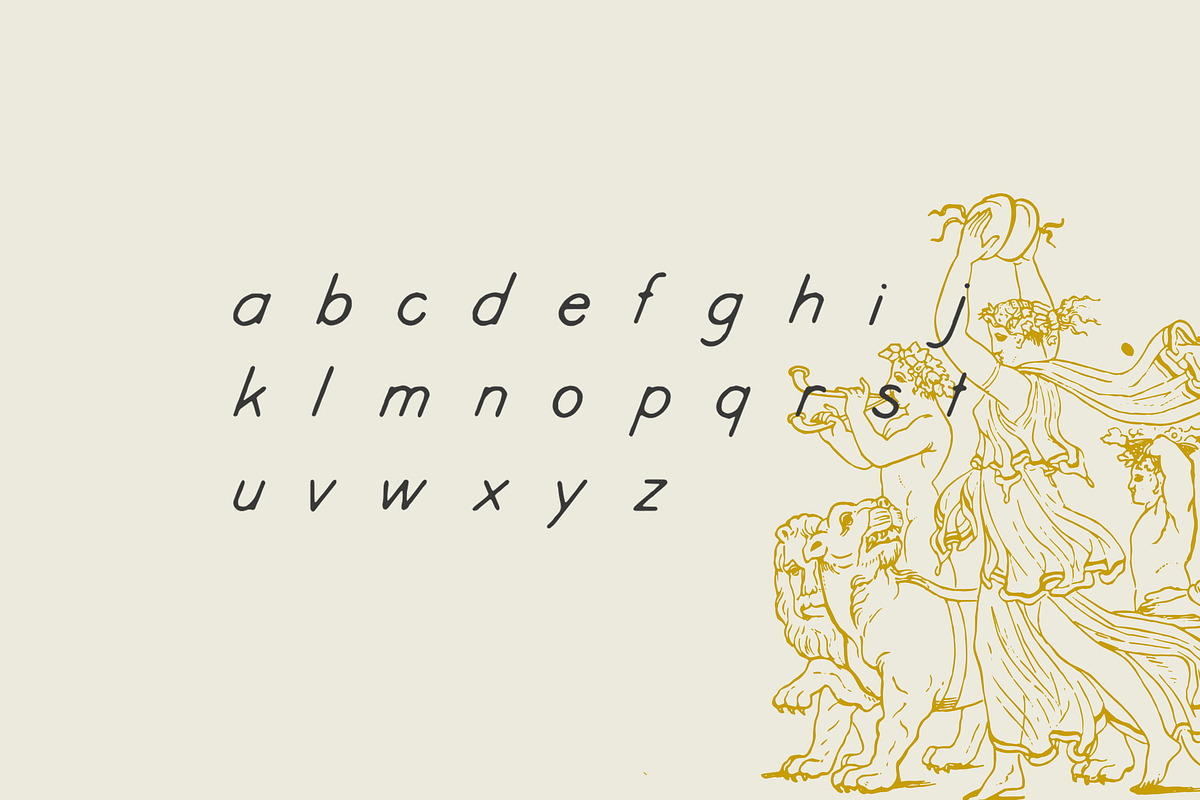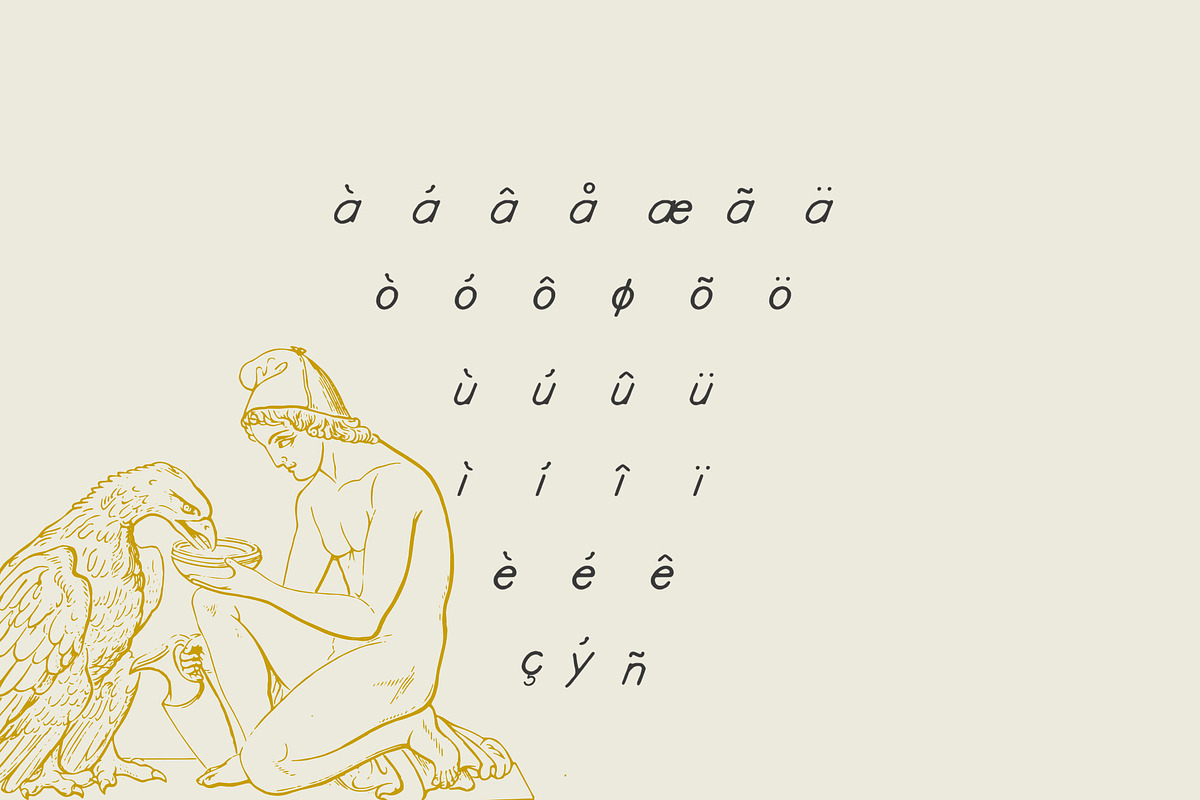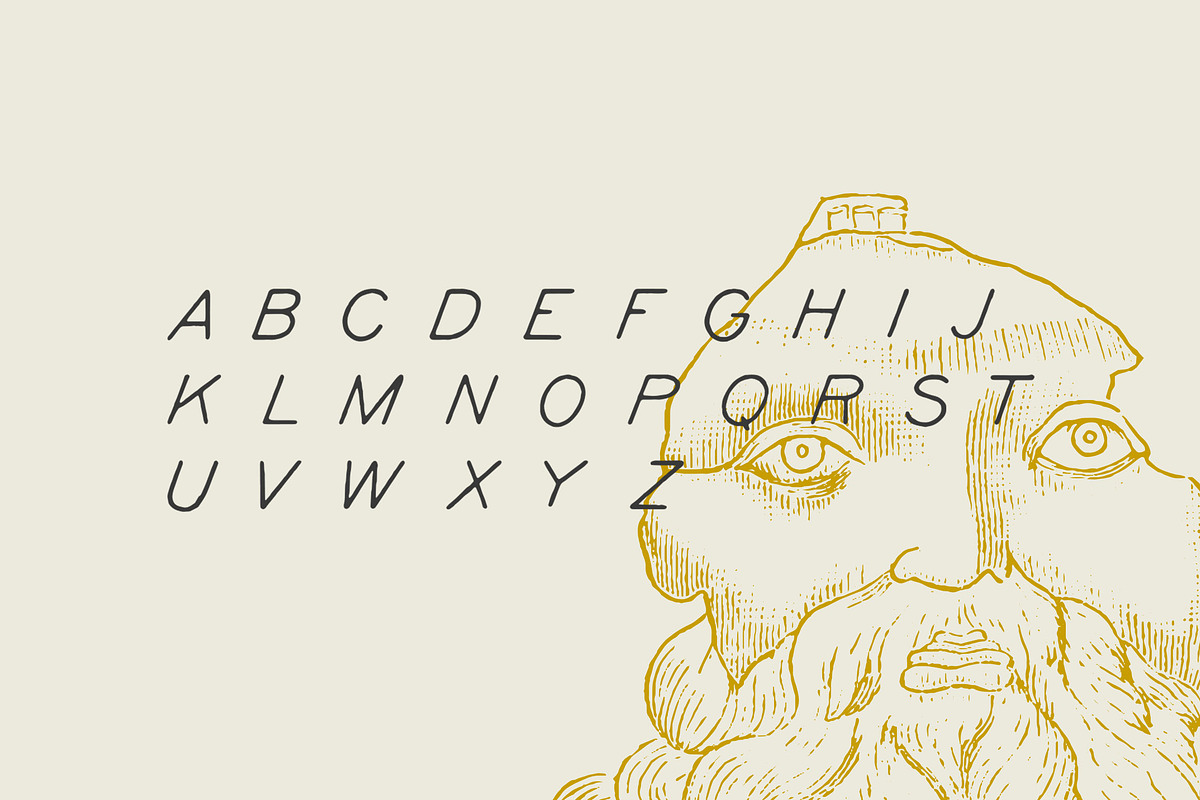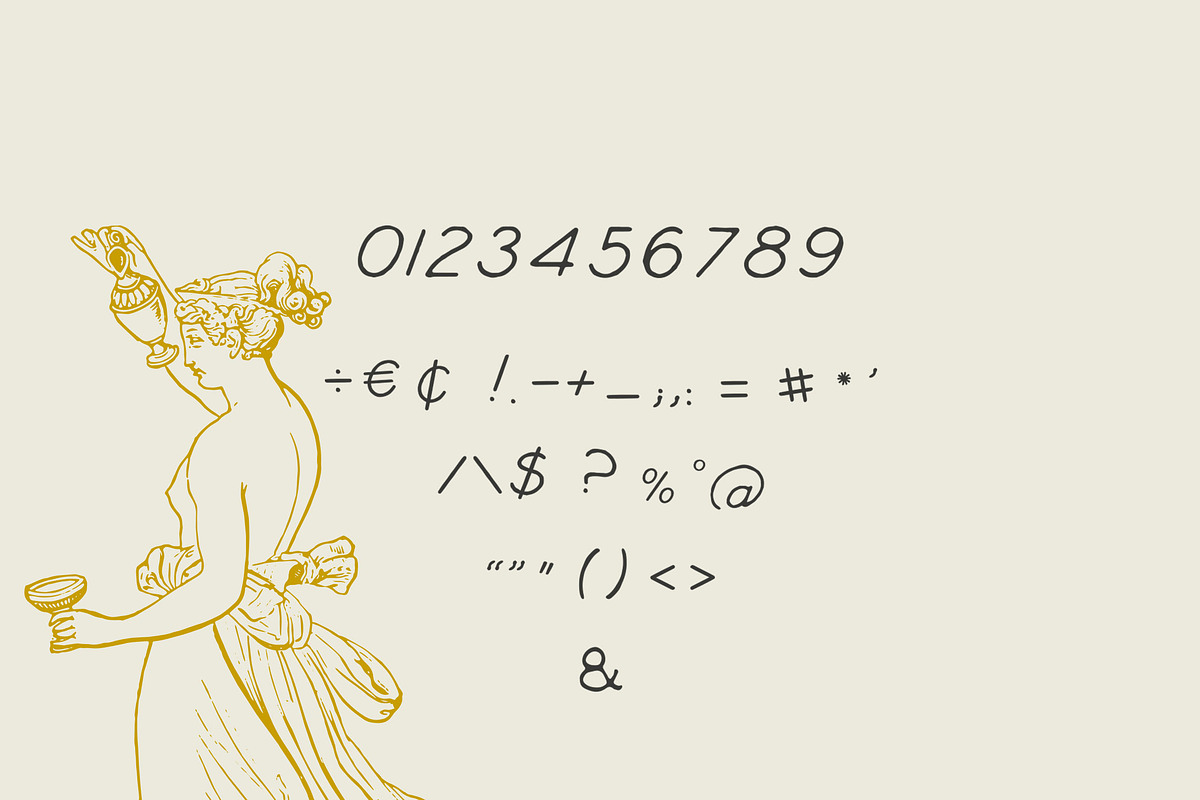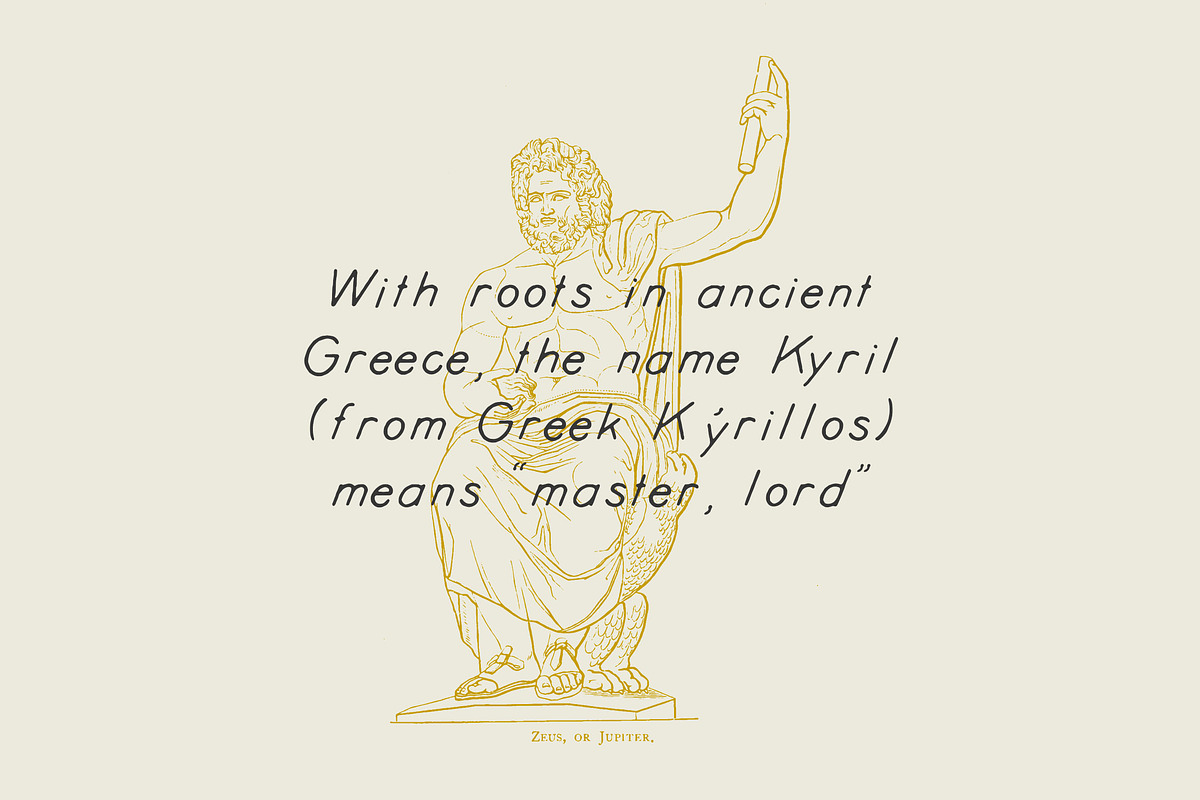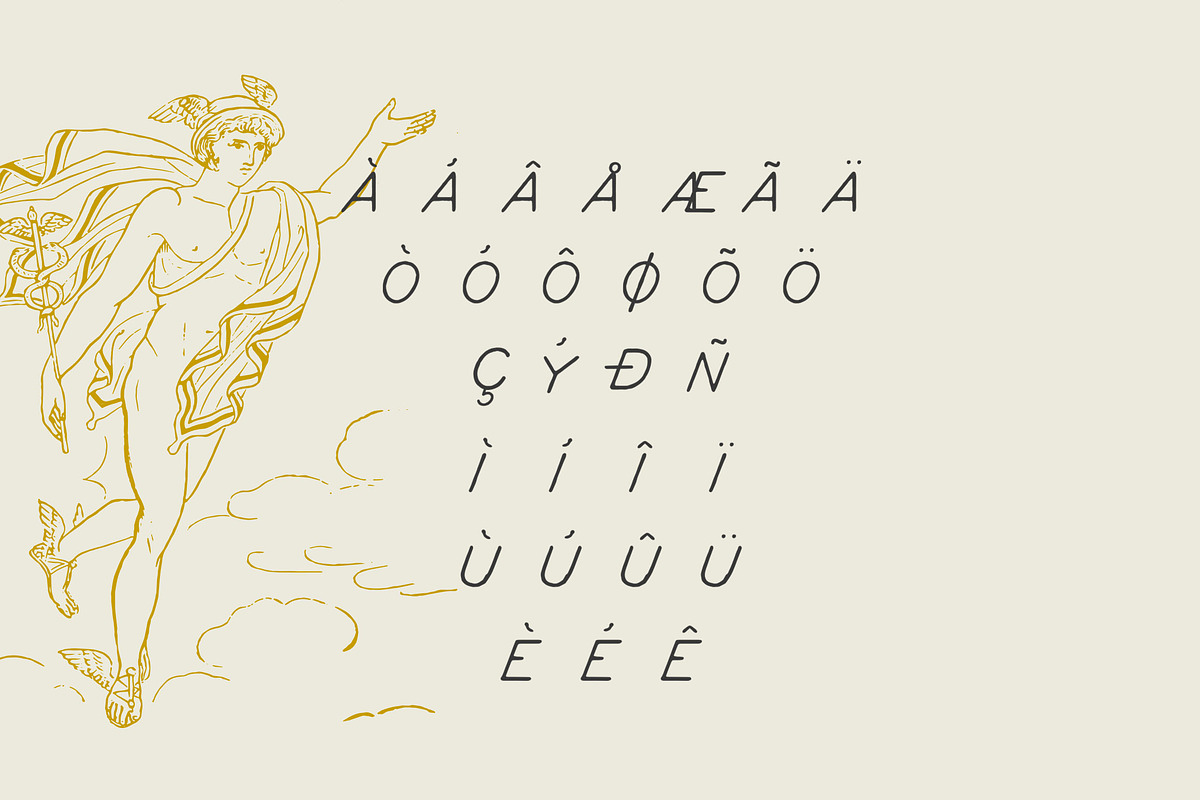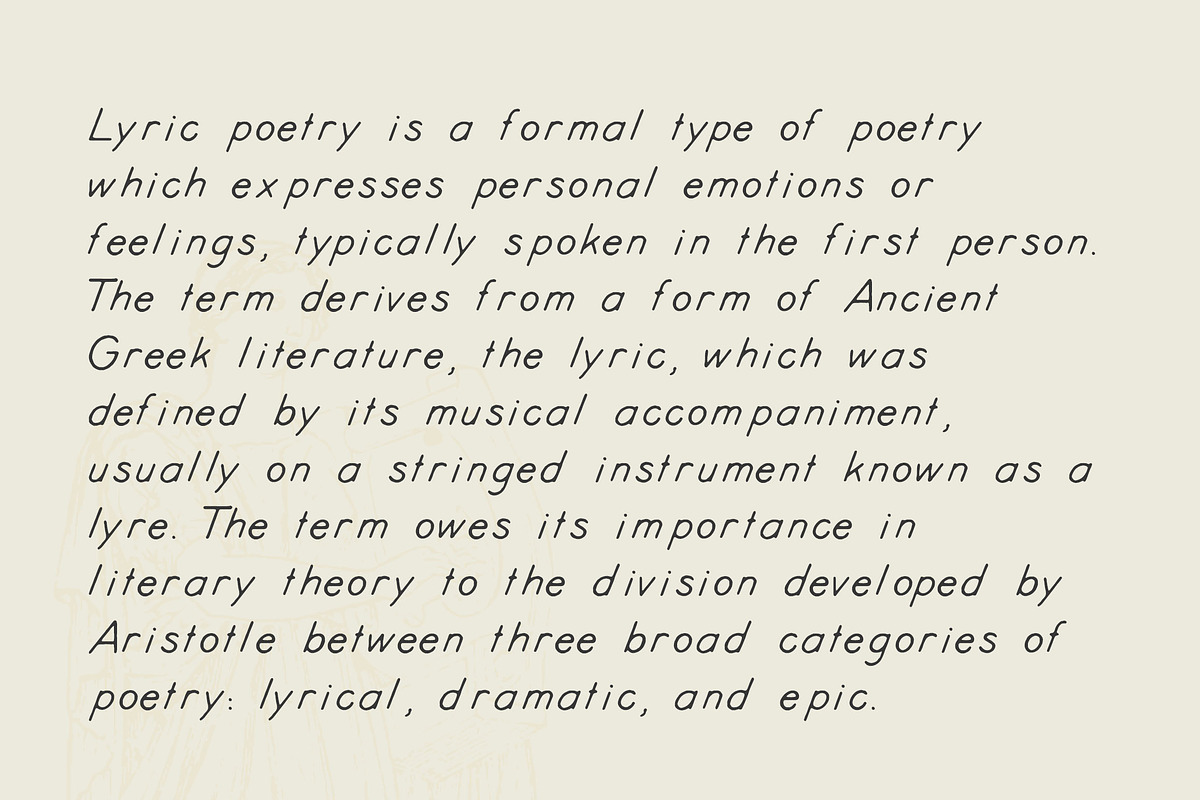
Kyril — A display hand-drawn font
KYRIL - A display hand-drawn font
Kyril is a hand drawn font that features uppercases, lowercases, numbers, punctuation and a set of special characters for international language support.
While designing I got inspired by ancient Greek gods and mythology, therefore the name Kyril, meaning 'Master, Lord' from ancient Greek. Also the name if read backwards spells 'Lyrik' which is a form of poetry originated in Greece over two millennia ago, and was traditionally accompanied by the sound of Lyre, therefore the name lyric.
Kyril display font will do an amazing job in logo design, brands and labels. It's perfect to give a unique vibe to your digital products and websites.